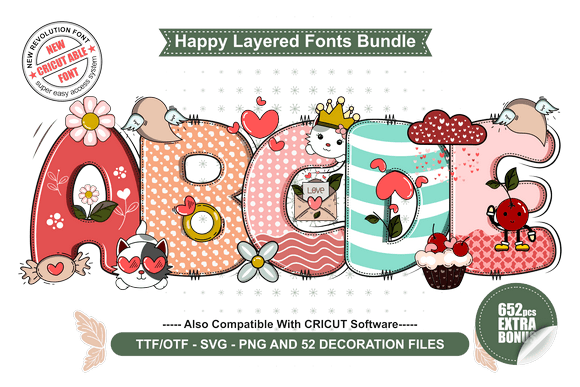
Lovely Patch
The first time I saw Lovely Patch, I felt a quiet confidence. It’s not flashy, but it carries a deliberate charm that feels just right for a project that needs to balance warmth and professionalism. The letters feel grounded yet expressive, with a subtle elegance that suggests it’s been thoughtfully crafted for real-world use. It’s the kind of font that makes you think, “This could work.”
Lovely Patch is a display font with a serif structure, but it doesn’t lean too heavily into traditional serif characteristics. Instead, it blends a modern typographic sensibility with a touch of classic appeal. The serifs are soft and rounded, giving the typeface a friendly, approachable vibe without being overly casual. This makes it versatile enough to fit into a range of design contexts, from branding to editorial layouts.
When considering its use in logo design, I found that Lovely Patch can serve as a strong foundation for a brand identity that wants to convey both sophistication and approachability. Its clean lines and balanced proportions make it suitable for both large-scale logos and smaller text elements. However, it’s important to note that while it works well on its own, it might benefit from pairing with a sans serif font for contrast and hierarchy in more complex brand systems.
In packaging design, Lovely Patch adds a refined touch that can elevate the visual experience without overwhelming the product. It’s especially effective when used on labels or tags where a bit of personality is needed without sacrificing readability. Testing it in black and white revealed that it maintains clarity even in monochrome environments, which is a great asset for print projects.
For web design and social media graphics, Lovely Patch holds up well. It reads smoothly at medium sizes and has a good amount of legibility, making it suitable for headers, call-to-action buttons, and short promotional text. However, I recommend testing it in small sizes, as some of the delicate serifs can become less distinct when scaled down. This is something to keep in mind when designing for digital platforms where text may be viewed on various screen sizes.
In editorial design, Lovely Patch brings a sense of refinement that complements both articles and visual storytelling. It’s not too bold, so it doesn’t compete with the content, but it still commands attention when used strategically. Pairing it with a sans serif font like Helvetica or Montserrat creates a nice balance between formality and modernity, which is ideal for magazines, newsletters, and blog posts.
One thing I noticed was how Lovely Patch handles uppercase and lowercase letters. The contrast is subtle but intentional, which helps maintain a cohesive look across different text lengths. When compared to other display fonts, it stands out for its consistent weight and spacing, which contributes to a cleaner overall layout.
I also tested it against script and handwritten fonts, and while it doesn’t mimic those styles directly, it complements them well in mixed-type designs. This versatility makes it a valuable addition to any designer’s toolkit, especially when working on creative fonts for digital products or printable design assets.
However, there are situations where Lovely Patch should be used with caution. Large headlines or brand marks that rely heavily on the font’s decorative qualities may lose their impact if overused. Similarly, it’s best suited for short phrases rather than long blocks of text. In these cases, it’s better to pair it with a more readable body font to ensure accessibility and user engagement.
Readability is one of the key factors I considered during my evaluation. While Lovely Patch is visually appealing, it’s not the most legible font for extended reading. That said, it performs admirably in contexts where the audience is looking for a quick read or a visual highlight rather than dense information. This makes it ideal for social media graphics, posters, and flyers where the goal is to capture attention quickly.
For designers working on commercial projects, it’s essential to confirm the licensing terms before using Lovely Patch in client work. As a premium font, it offers high-quality design assets that are suitable for both print and digital applications. Whether you’re creating Canva templates, Cricut projects, or branded merchandise, the font’s versatility ensures it can adapt to various creative formats.
In summary, Lovely Patch is a thoughtful, well-crafted font that bridges the gap between modern typography and classic design principles. It’s a great choice for projects that require a touch of elegance without sacrificing readability or functionality. With careful application and proper pairing, it can enhance brand identity, improve visual hierarchy, and contribute to a more engaging design experience.